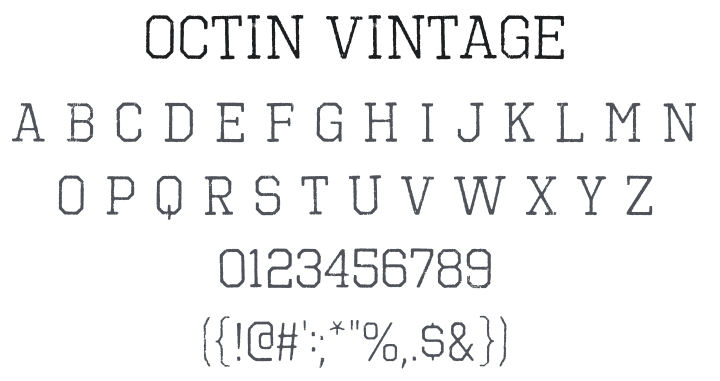
Octin Vintage Font
About Octin Vintage
Octin Vintage blends industrial strength with vintage character in a dual-style family of sans and serif designs, each offered in three weights. Its subtle texture adds depth while preserving clarity, creating a look that’s durable, authentic, and versatile. Suited to law enforcement graphics, military insignia, sports branding, or rugged packaging, it conveys a sense of heritage and reliability. Supporting Latin-based European languages and part of the broader Octin family, Octin Vintage delivers timeless grit and confidence across every application.